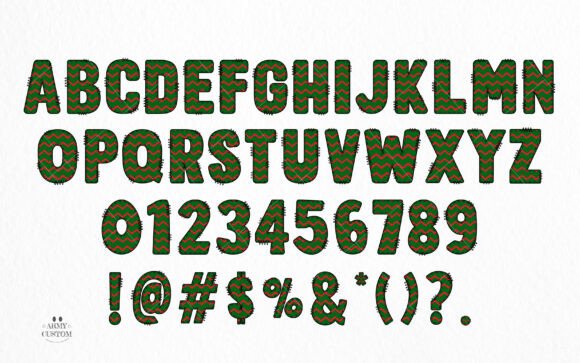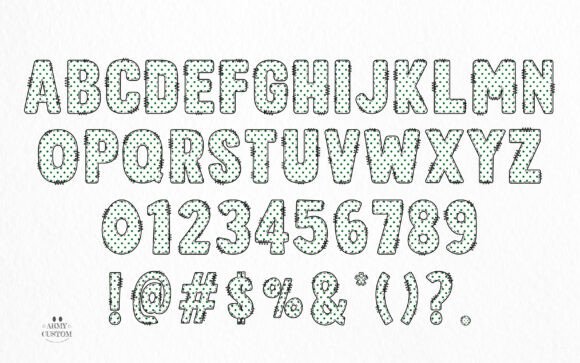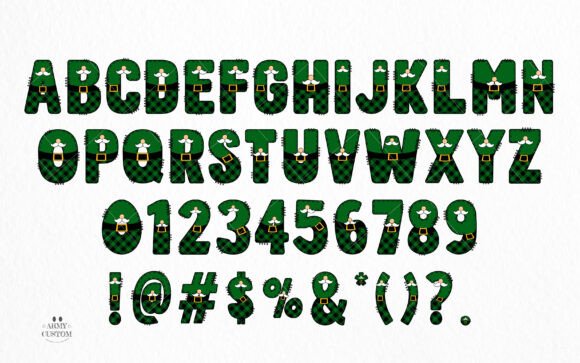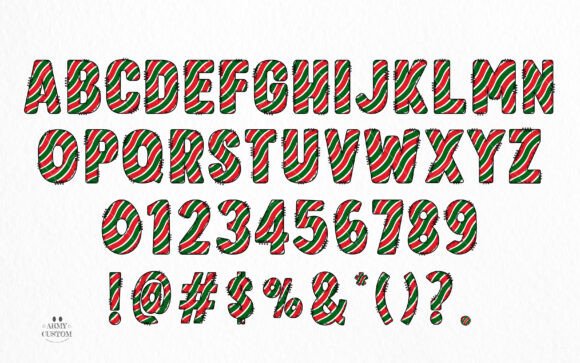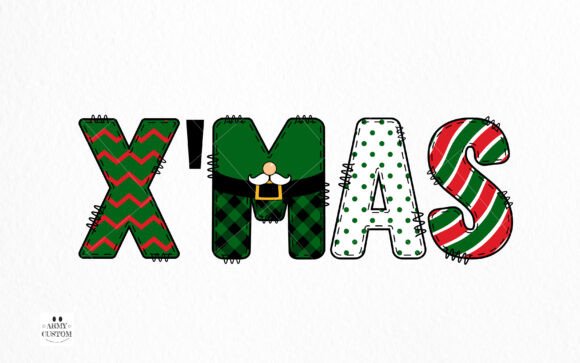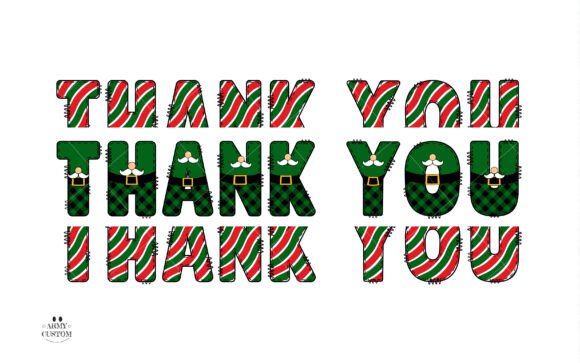
Elevate Your Festive Projects with the Delightful Christmas Army Bundle Font
The holiday season is upon us, and with it comes the desire to create vibrant and festive designs that capture the spirit of Christmas. For designers and crafters looking to add a dash of merriment to their projects, the ‘NO.8 Christmas Army Font’ is a playful and delightful addition to any holiday design toolkit. This charming font is imbued with a sense of whimsy, making it an ideal choice for creating joyful holiday decorations, greeting cards, and other design projects.
A Font Inspired by the Whimsy of the Holiday Season
The Christmas Army Font is a jovial and festive font that brings to life the adorable antics of Santa’s helpers. Each letter spelled out in this font becomes a joyous celebration, perfect for adding a touch of holiday cheer to any design project. Whether you’re creating holiday decorations, crafting greeting cards, or designing festive posters, this font is sure to bring a smile to everyone’s face.
Why Choose the Christmas Army Font?
So, why choose the Christmas Army Font for your holiday design projects? Here are just a few reasons why this font stands out:
- Unique and Playful Design: The Christmas Army Font features a unique and playful design that’s sure to add a touch of holiday cheer to any project.
- Versatile and Compatible: This font is compatible with various design programs and cutting machines, making it easy to incorporate into your projects.
Tips and Ideas for Using the Christmas Army Font
Now that you know a bit more about the Christmas Army Font, here are some tips and ideas for using it in your holiday design projects:
- Create Festive Holiday Decorations: Use the Christmas Army Font to create festive holiday decorations, such as signs, banners, and garlands.
- Design Joyful Greeting Cards: Add a personal touch to your holiday greeting cards with the Christmas Army Font.
- Make Custom Holiday Gift Tags: Use the Christmas Army Font to create custom holiday gift tags that add a touch of personality to your gifts.